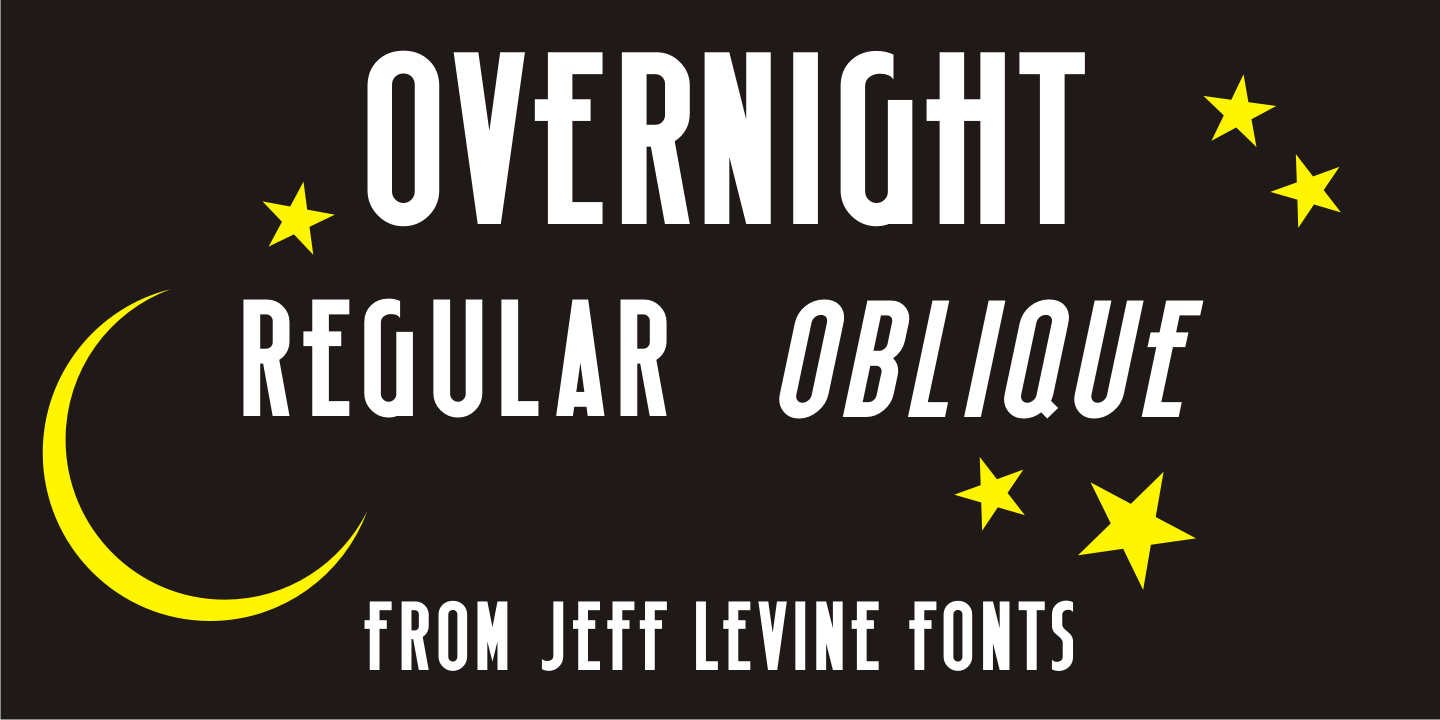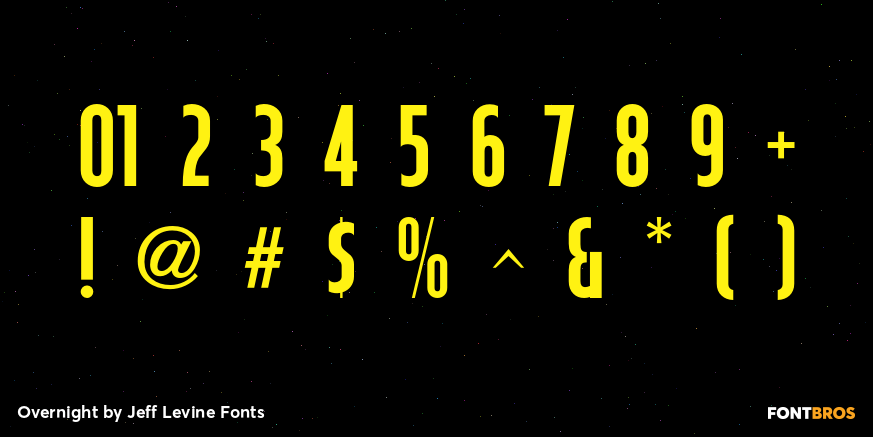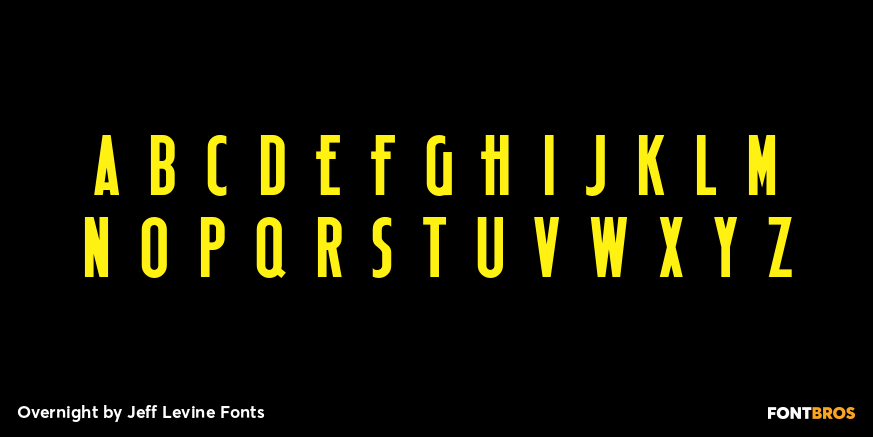
Overnight
Hand lettering on the cover of the 1932 sheet music for 'Sleep, Come On and Take Me” was the basis for Overnight JNL, which is available in both regular and oblique versions.
Overnight JNL Regular by Jeff Levine Fonts